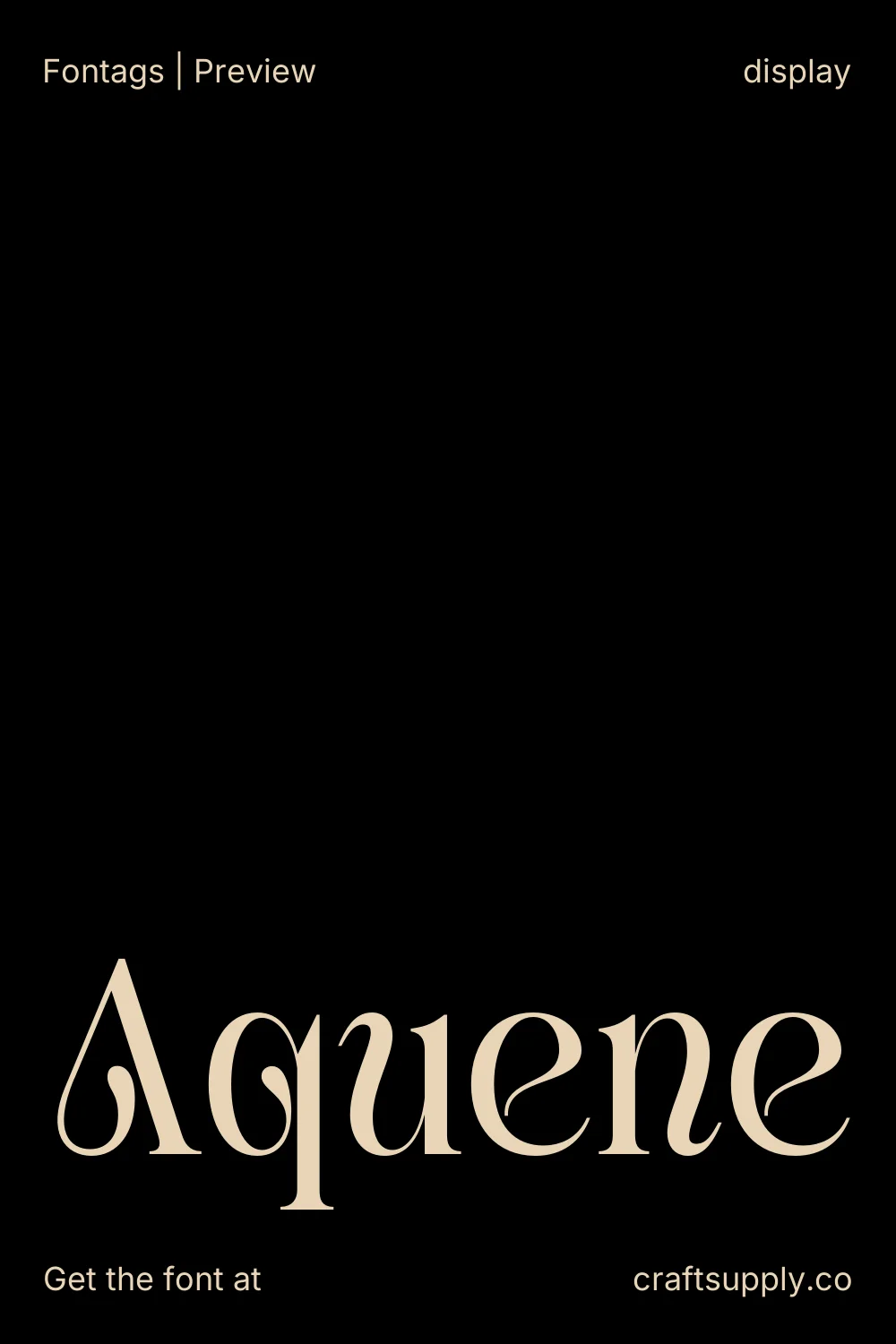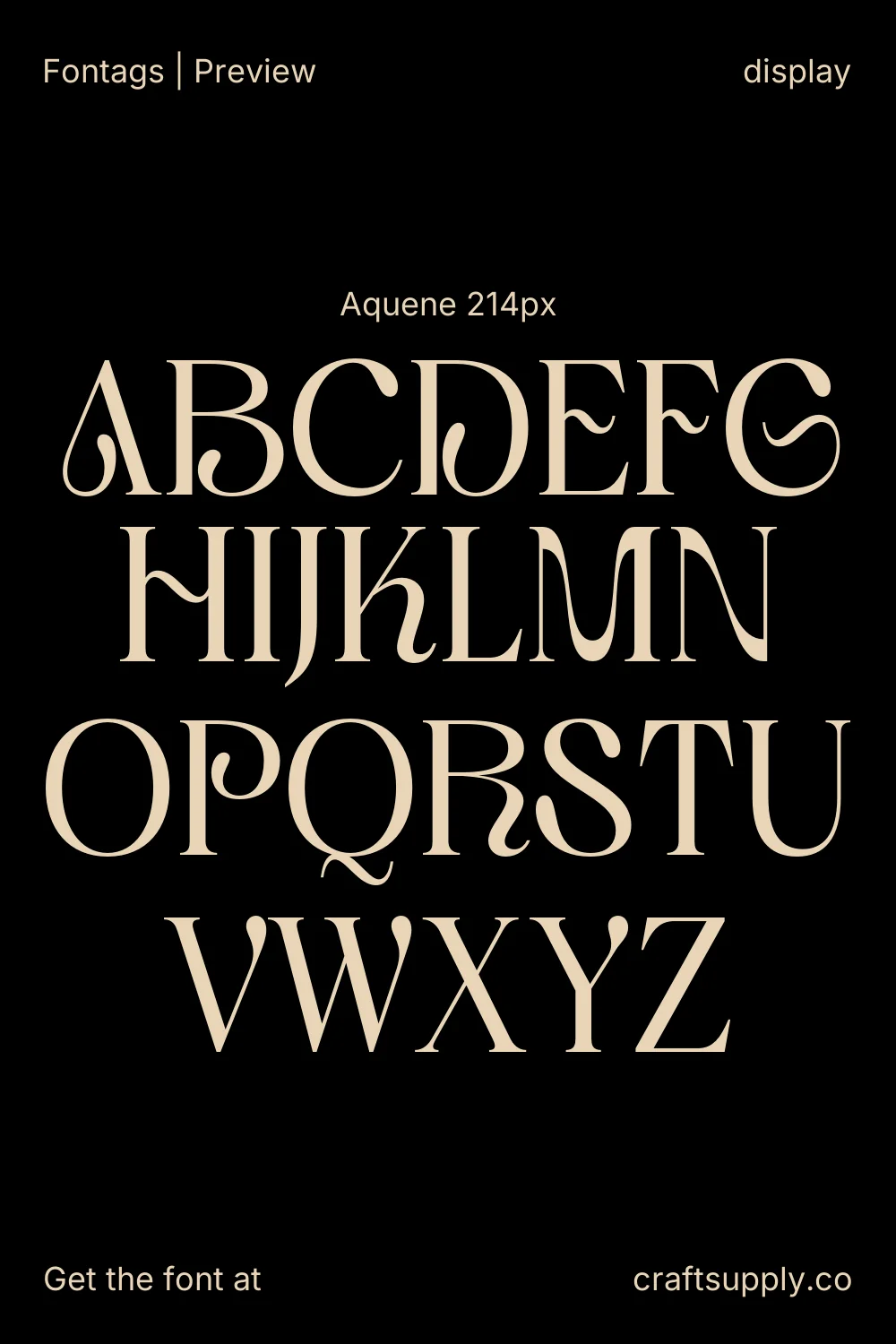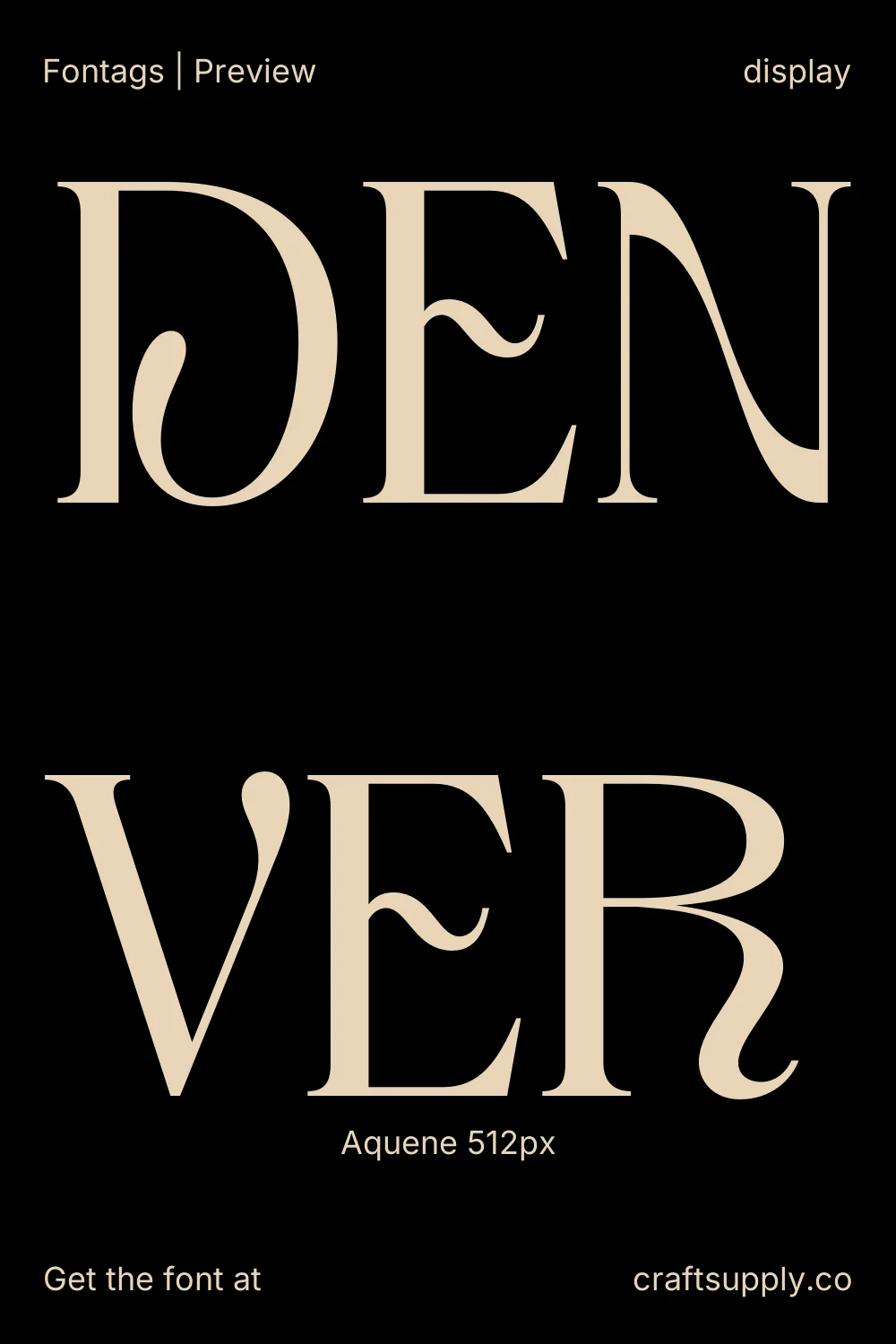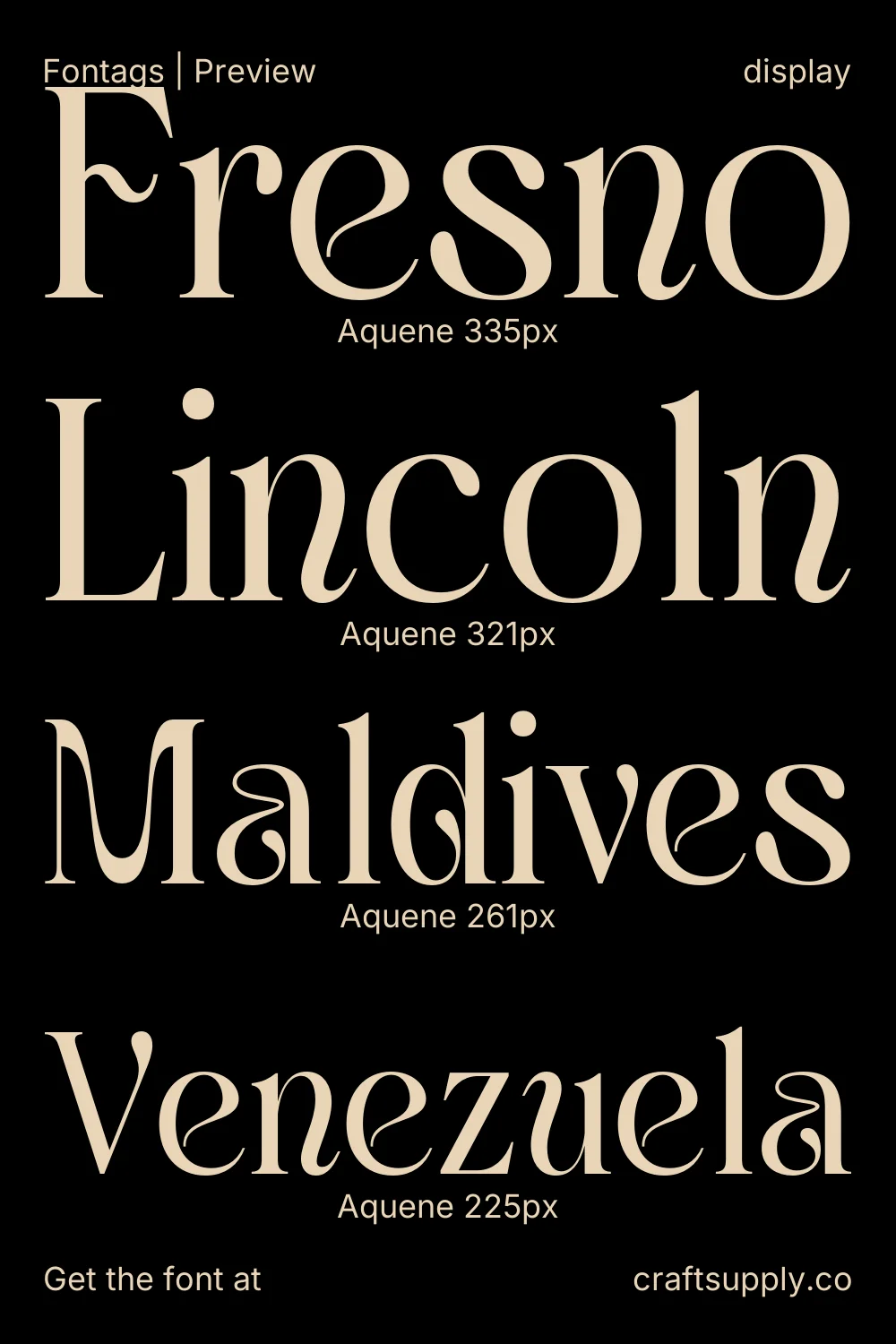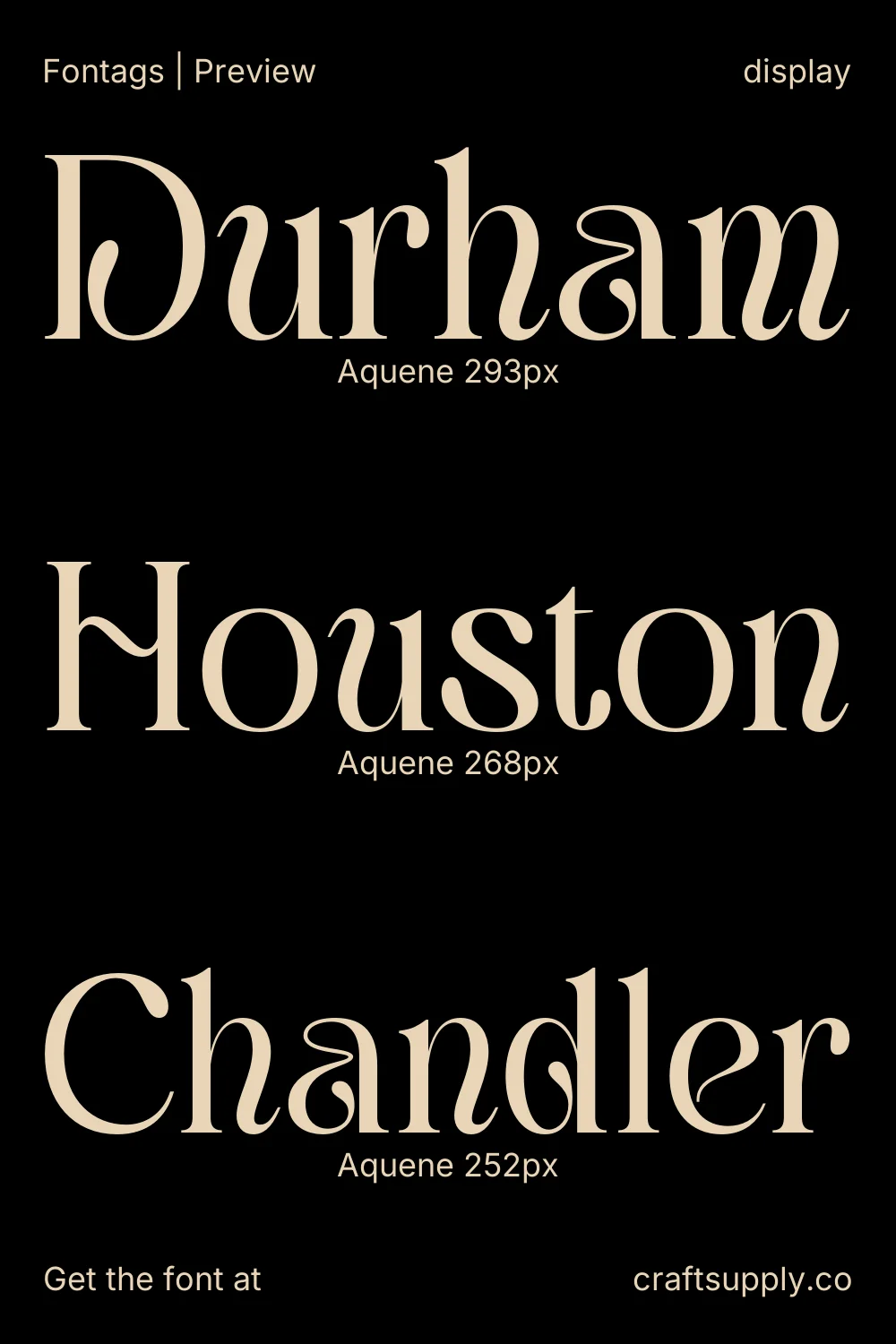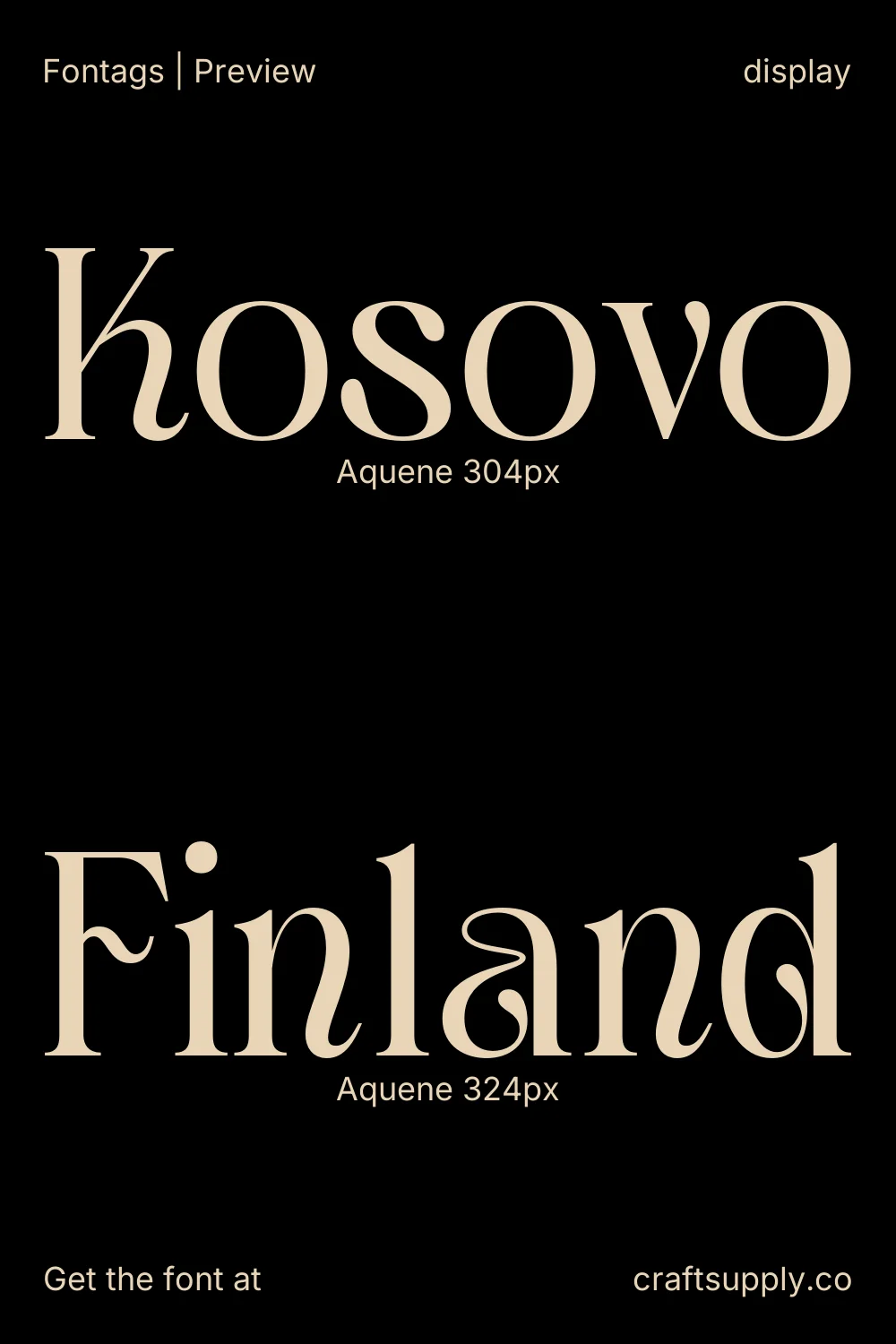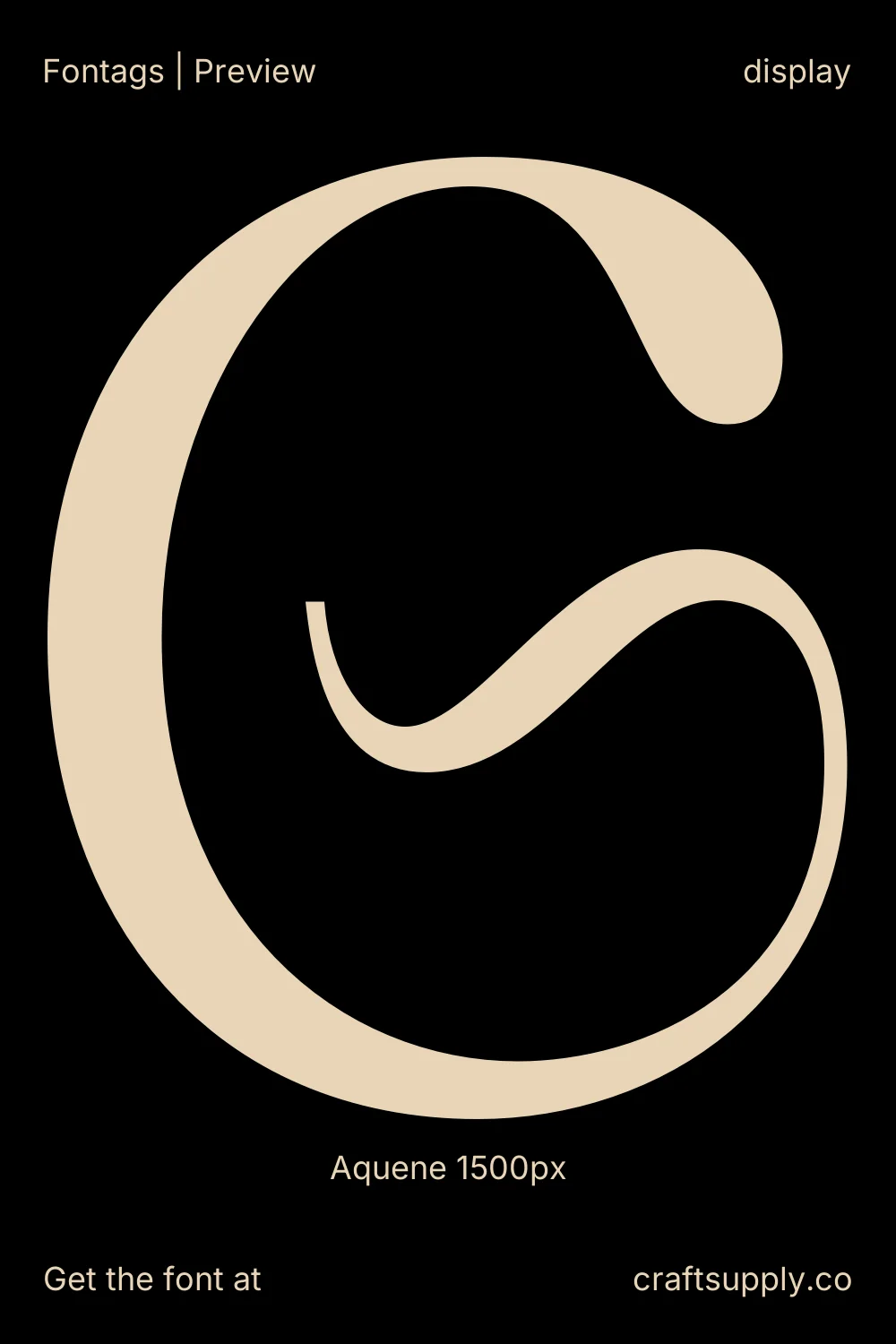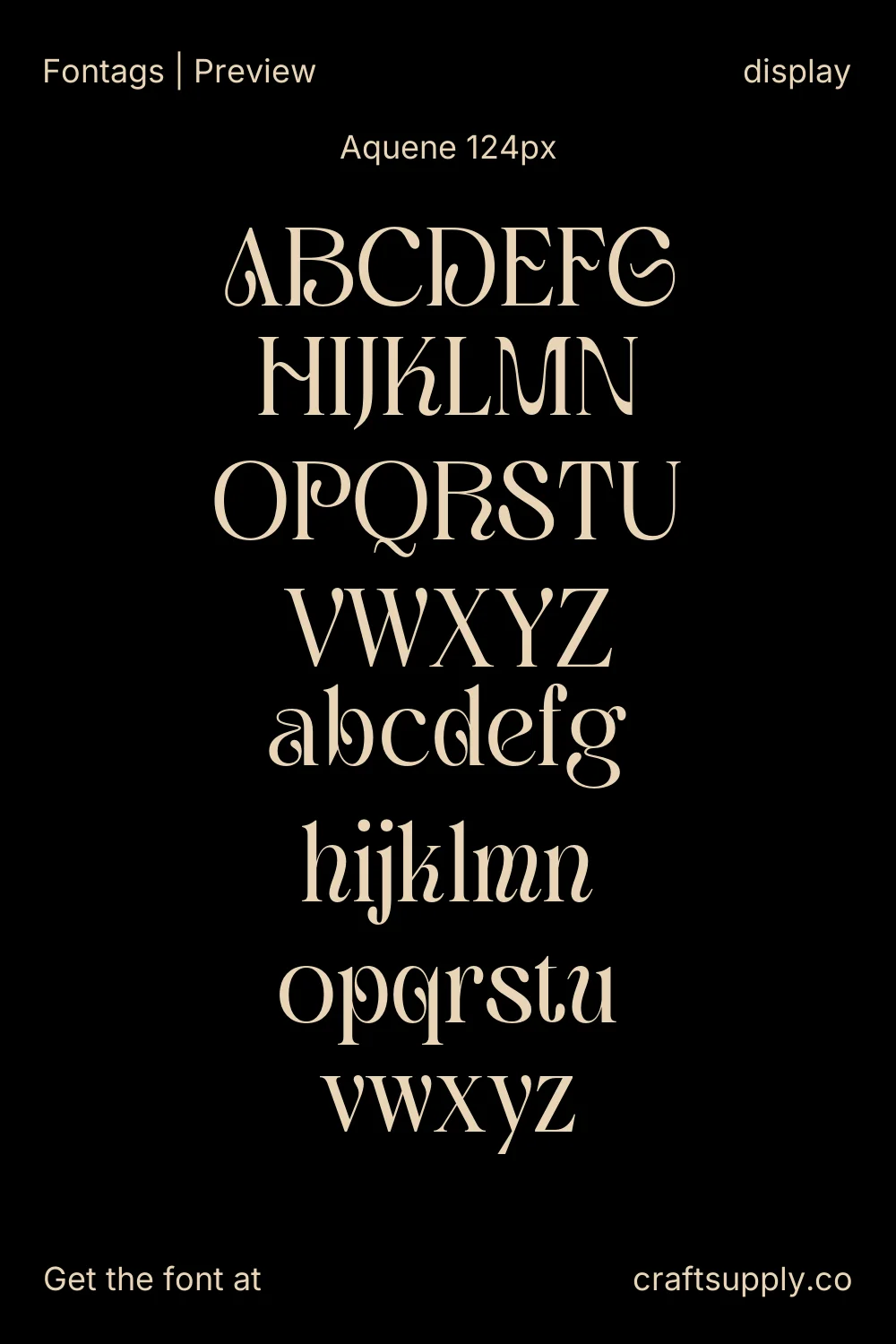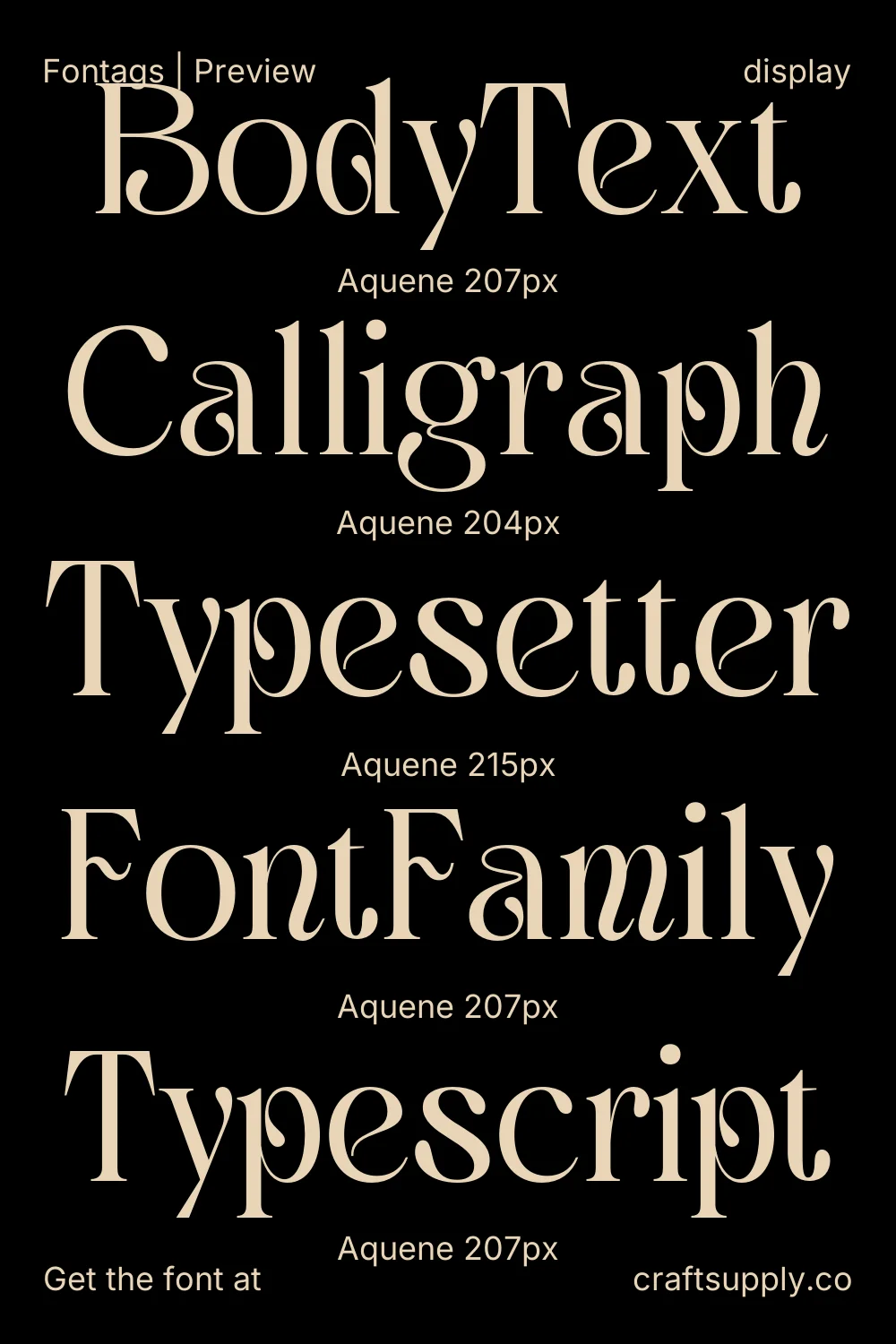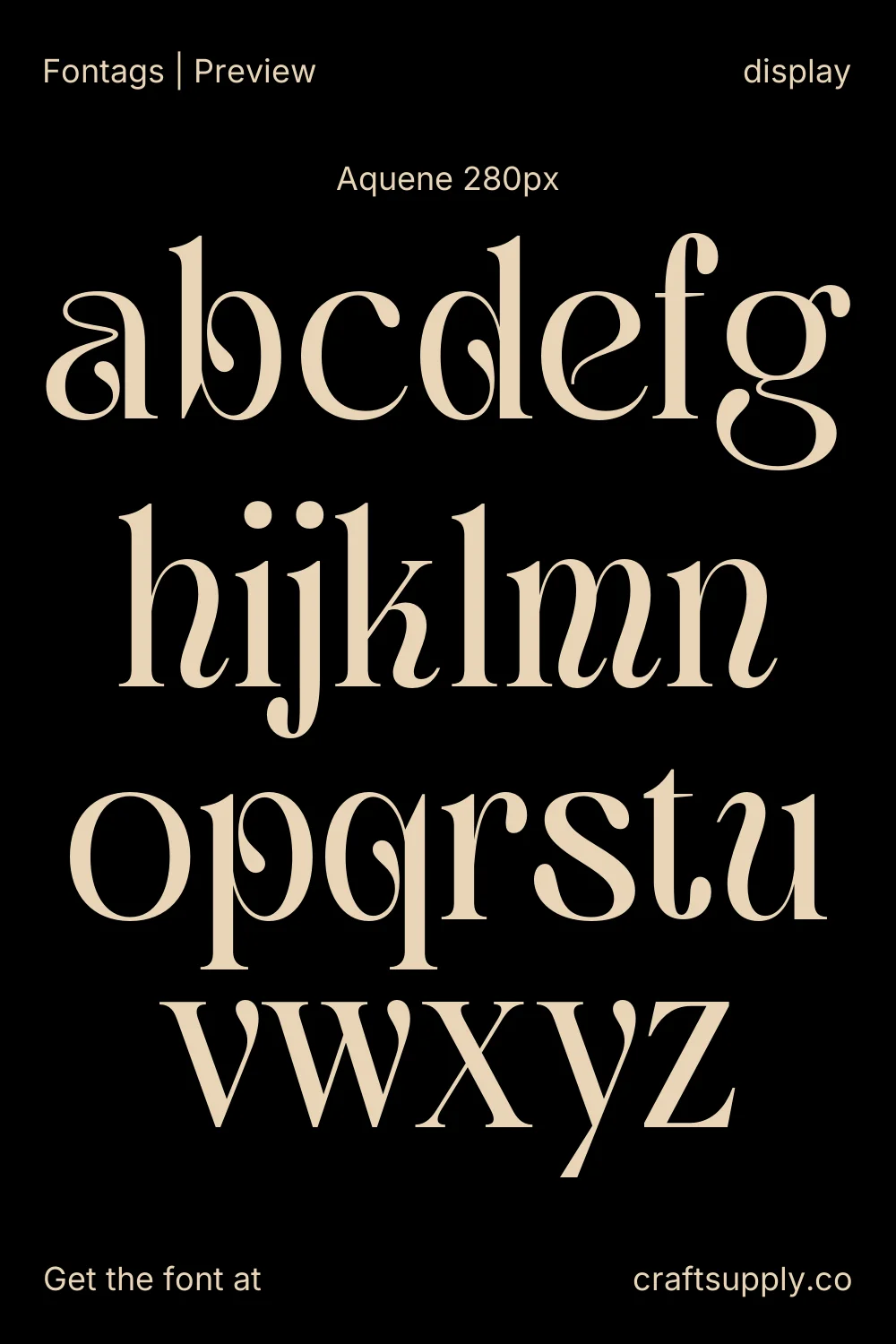
Aquene
Aquene is an elegant display serif font with a captivating flow and graceful curves, offering a sophisticated yet bold personality. Its versatile design excels in headlines, posters, logos, and branding materials, ensuring readability at all sizes.